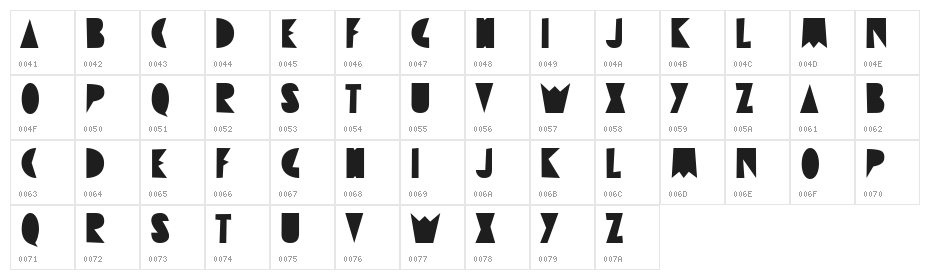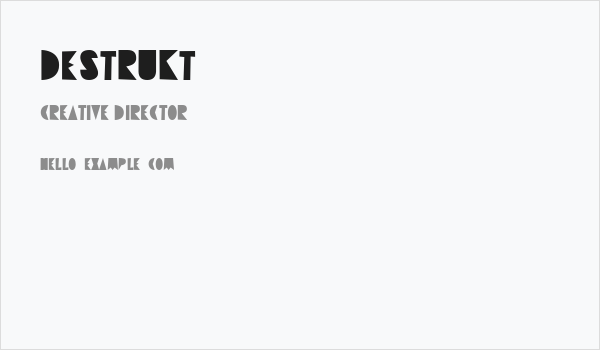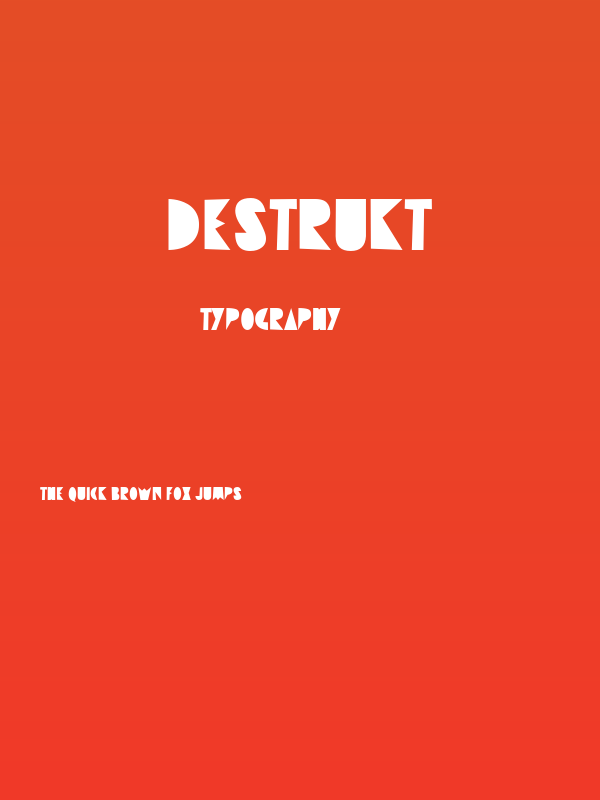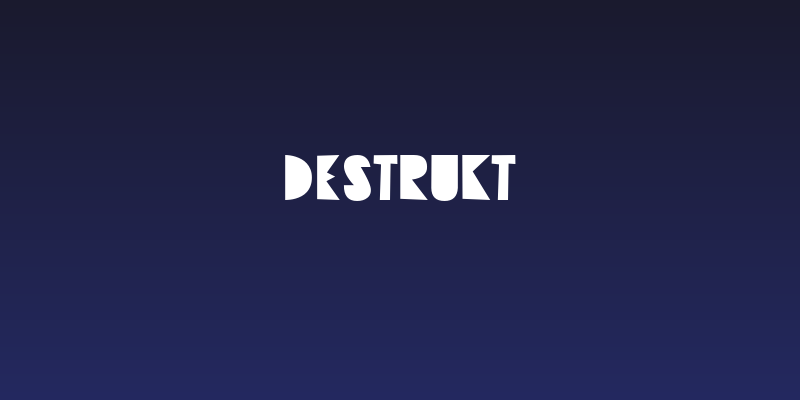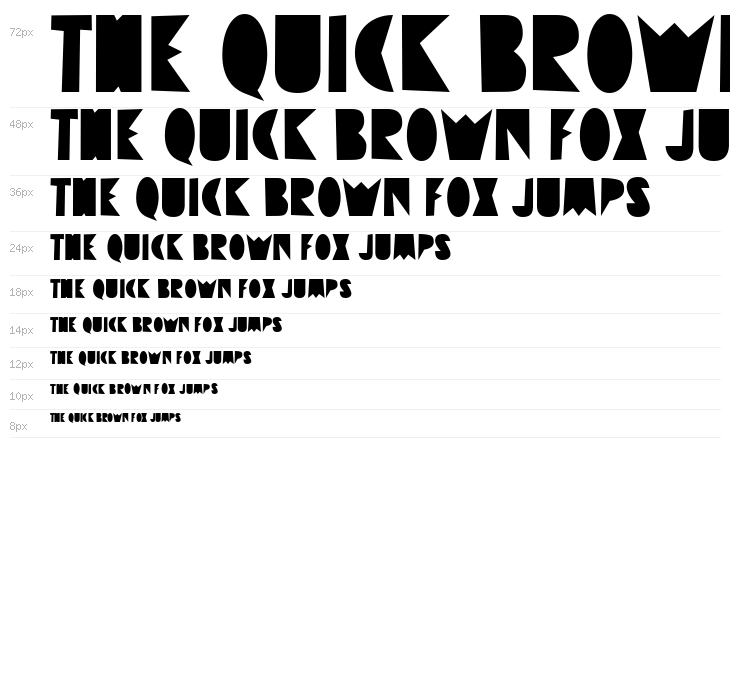
Destrukt Font
Destrukt Description
This font features bold, geometric shapes with a distinct, edgy appearance. The characters are constructed with sharp angles and a strong presence, making it ideal for attention-grabbing designs. The uppercase letters are particularly striking, with a mix of triangular and circular elements that create a dynamic visual impact. The font lacks lowercase letters and numbers, focusing solely on uppercase characters to maintain its bold statement. Its unique style is reminiscent of modern, abstract art, making it suitable for creative and unconventional projects.
| Proposed Projects | Ideal for posters, album covers, branding, and any project requiring a bold, artistic statement. |